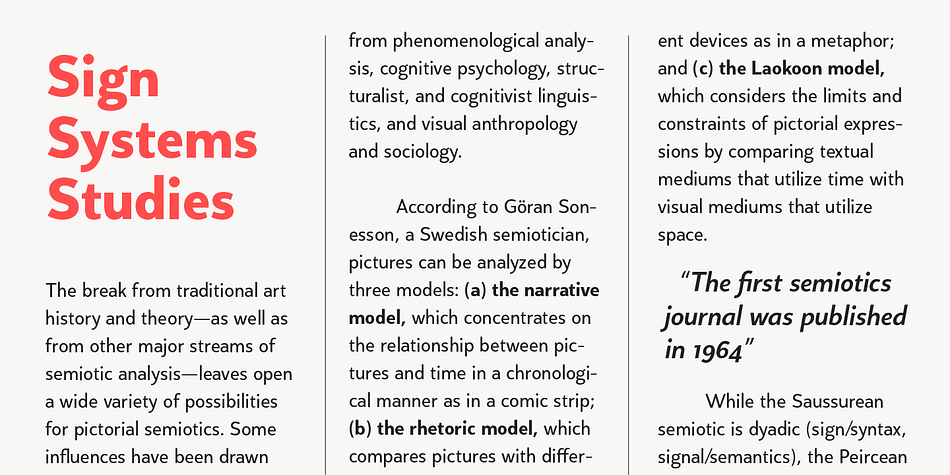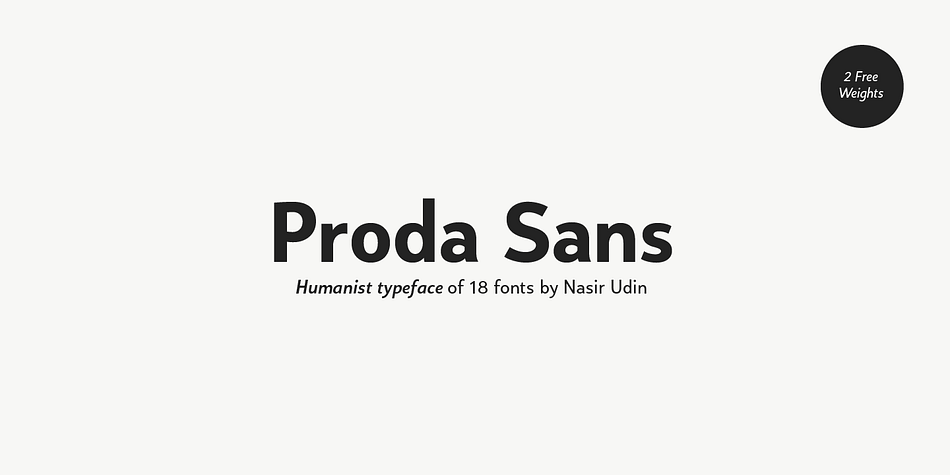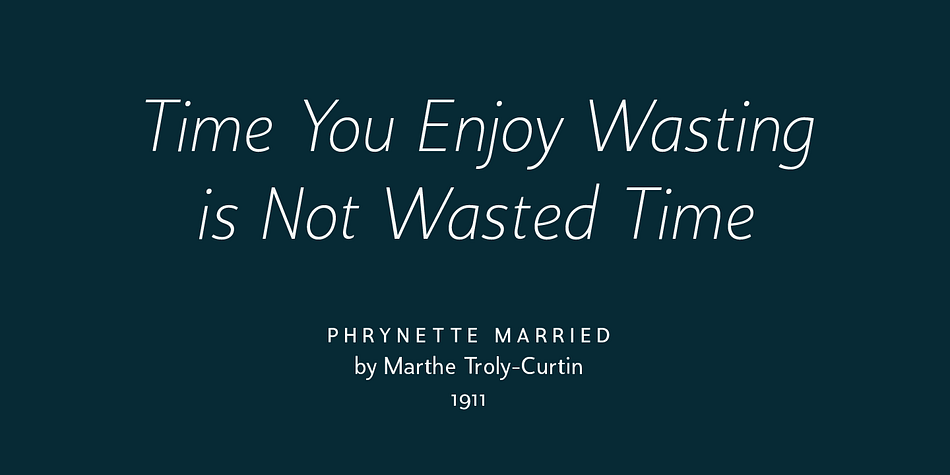
Proda Sans
Designed by Nasir Udin, Proda Sans is a sans serif font family. This typeface has eighteen styles and was published by Nasir Udin.
Meet Proda Sans, a humanist typeface with geometric construction inspired by the humanist-style sans serif faces that were popular in the mid 20th-century. Its calligraphic influenced letterforms have been adjusted to have geometric’s low-stroke-contrast for better legibility. The medium x-height give it a warm and delicate appearance, and keep your page bright.
It’s a family of nine weights plus matching italics. The thin and the black weights are great for display purposes. The light, book and regular weights are well suited for longer paragraphs and smaller texts.​​​​​​​
Proda Sans is developed for advanced typography needs. The OpenType fonts have an extended character set to support 200+ latin-based languages.